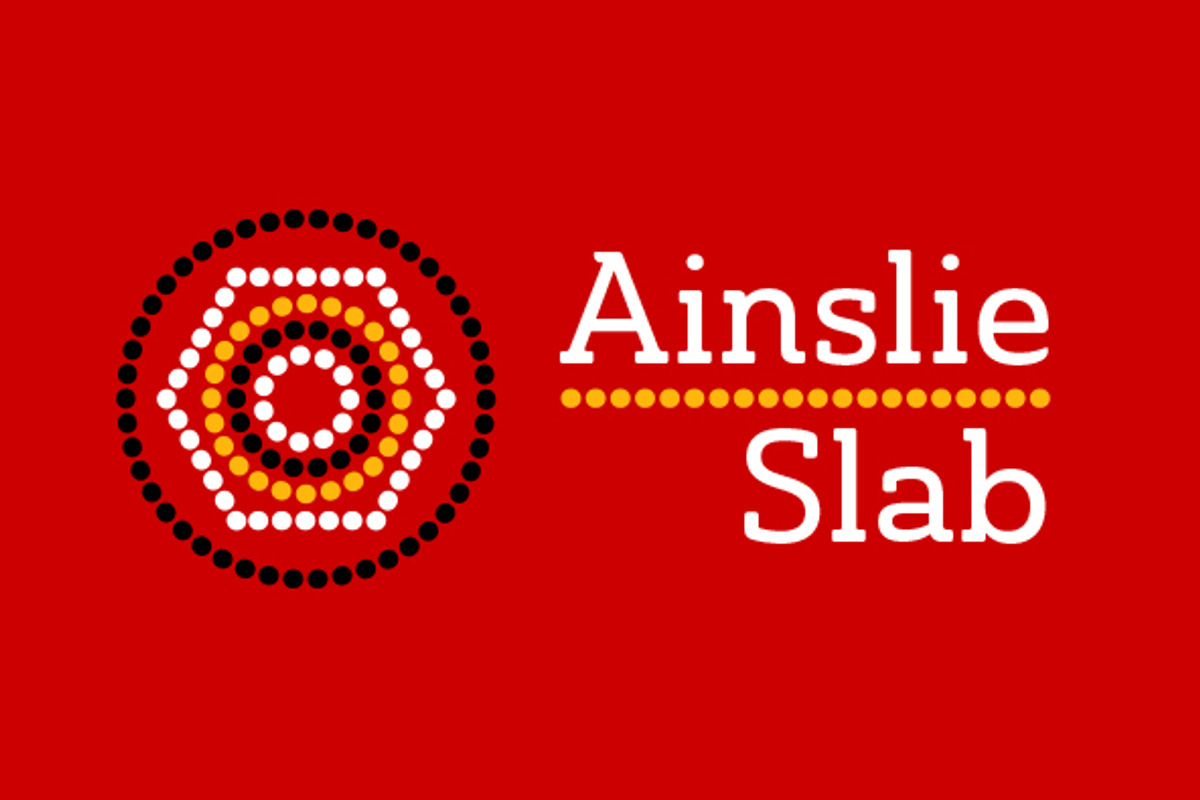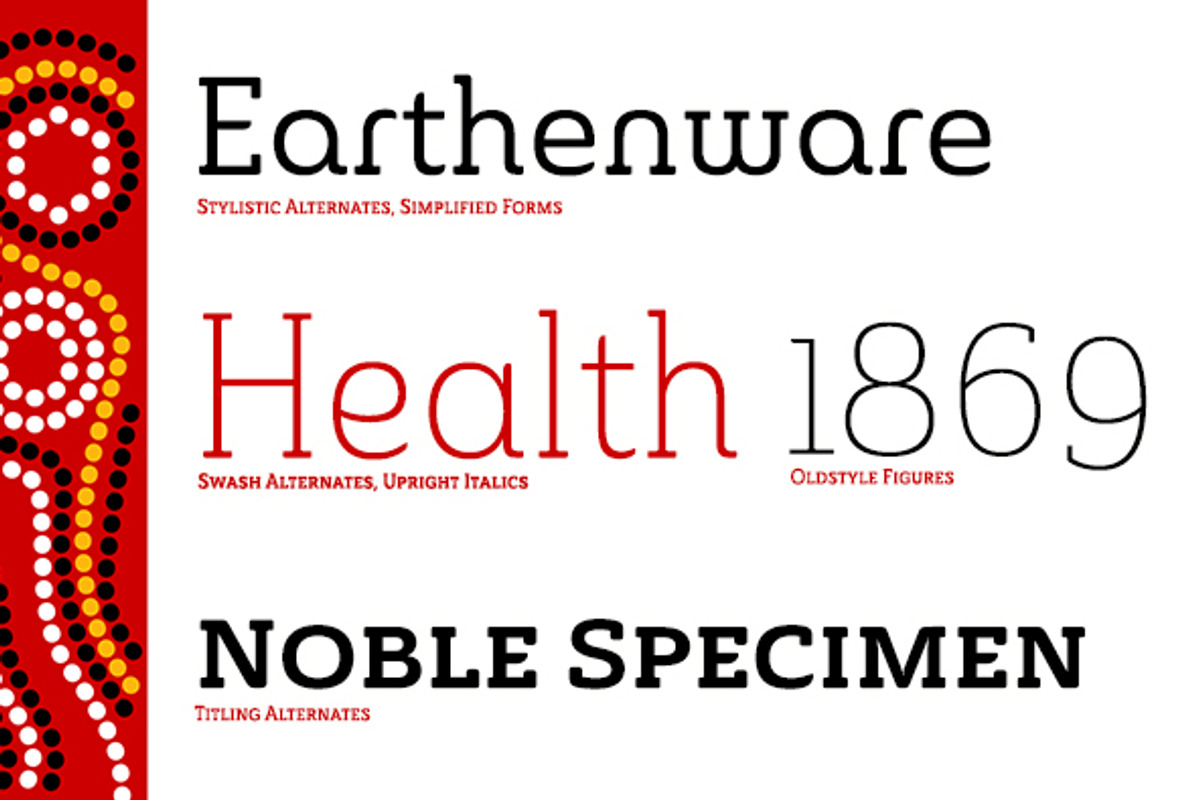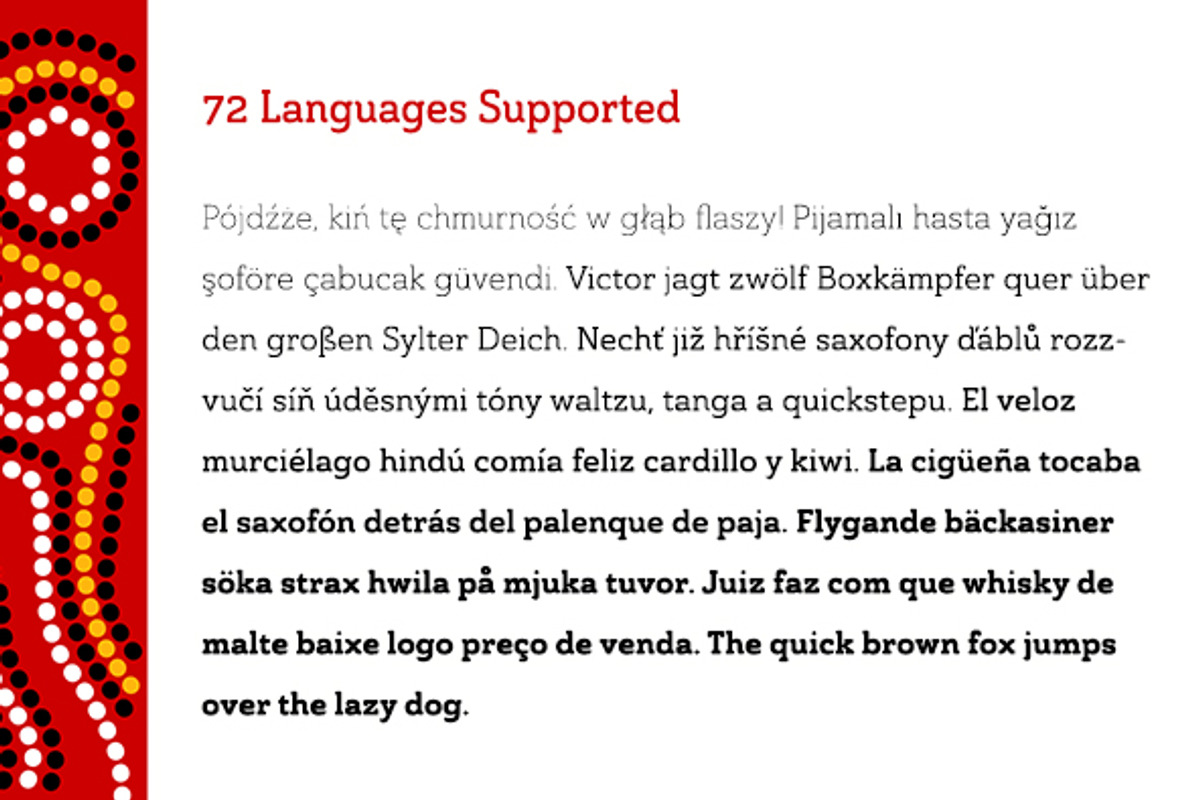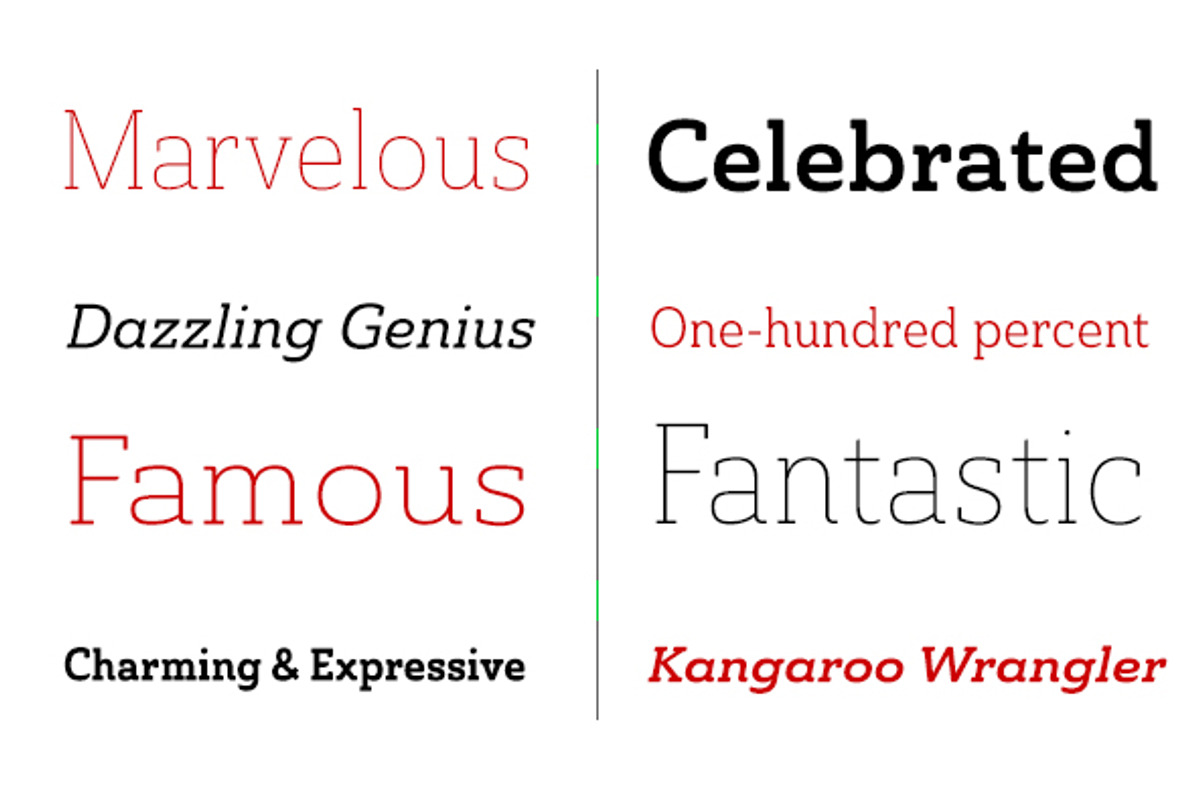
Ainslie Slab
Holy Dooley! It’s a new Ainslie!
Based on the inspiration from Mt. Ainslie and the Ainslie suburb outside Canberra, the original Ainslie adds geometric simplicity with a hint of aboriginal flair to the project. And now the muses of Ainslie are back at work, lending their structure as the foundation of Ainslie Slab. Like its big brothers, the new Ainslie Slab puts together a great mix of influences from Oz for a great looking typeface with some ace new shoes. Slab’s spiffy new slab serifs complement the classic frame, making the result a ripper Aussie typeface that can be used in a great number of applications.
Take a look at the trendy typeface’s alternates in action, too. You can access these in any OpenType-enabled application. Alternates, swashes and alternate titling caps allow you to customize your look and feel. Capital swash alternates, old style figures, and compact caps are included to add a bit more flexibility to your work as well. OpenType enabled applications can take complete benefit of your automatic replacing ligatures and alternates, and this font also presents the glyphs to help a wide array of languages. View all of these in the PDF brochure.
And then try them out. Combine it with Ainslie and Ainslie Sans for more flexibility. Whether you need a good slab for the copy or you want a clean, upbeat look for your headline, Ainslie Slab offers you a unique touch of the Outback that’s anything but out of touch.